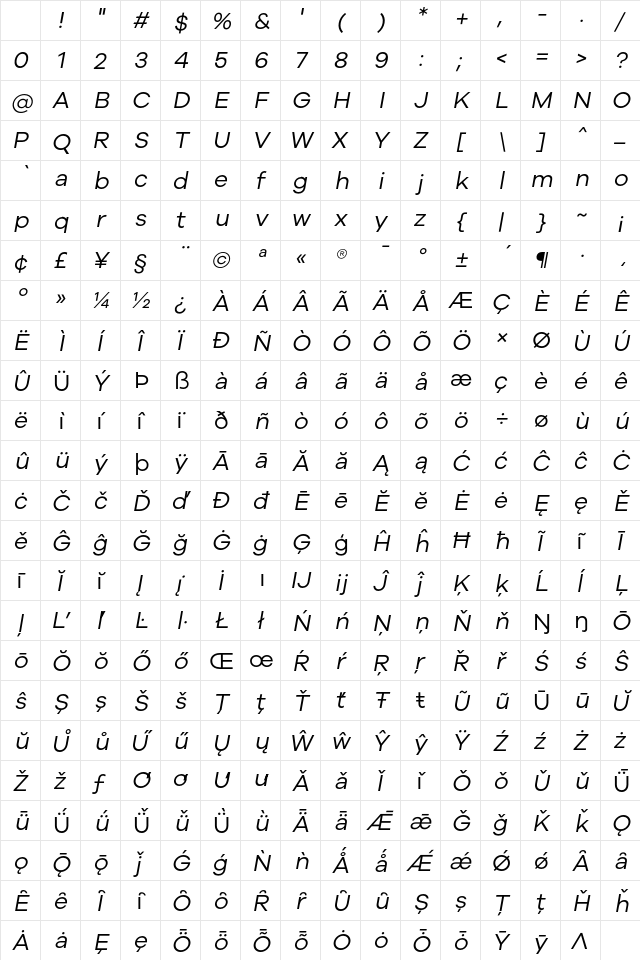
Complete Galyon Italic Italic glyph index. Displaying only characters natively supported by Galyon Italic Italic font.
Galyon Italic is a composed and adaptable typeface that performs quietly and consistently across a wide range of design contexts. The slanted form adds forward momentum and visual energy.
Pro Tip: Use Galyon Italic for emphasis, pull quotes, and subheadings where its slanted energy can add rhythm to the layout.